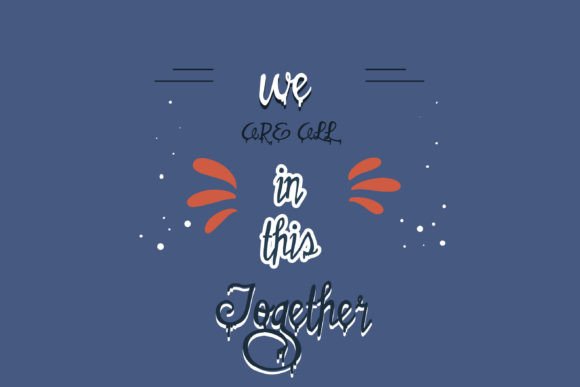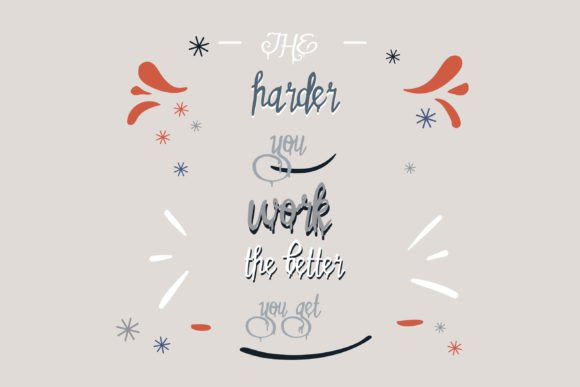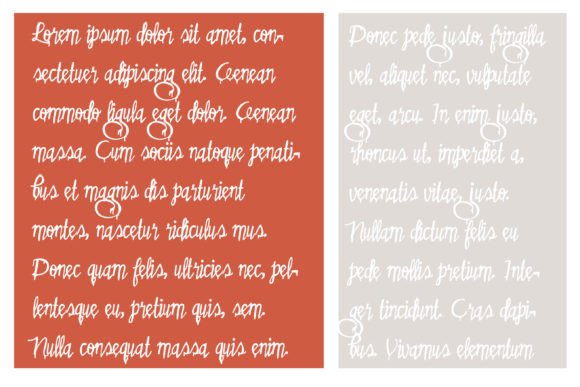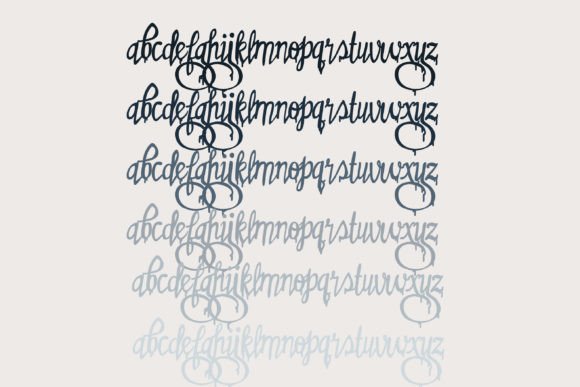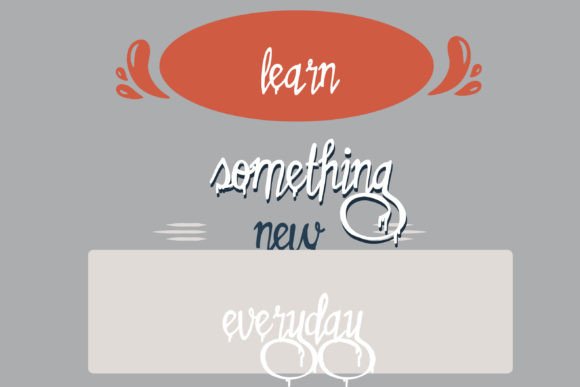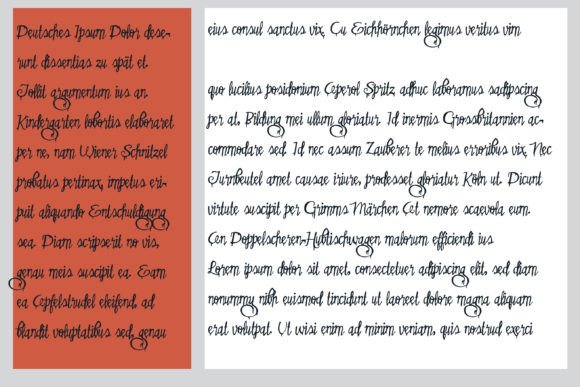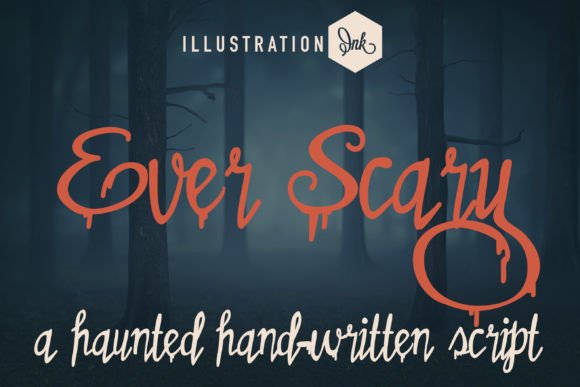
Ever Scary Font: The Ultimate Typeface for Spooky Season Fun
Are you ready to add a dash of Halloween magic to your projects? Look no further than the Ever Scary font, a delightfully playful typeface designed to bring spooktacular fun to your Halloween endeavors. With its whimsical and eerie letterforms, this font captures the essence of the season, making it perfect for party invitations, posters, and spooky decorations.
A Font that Embodies the Spirit of Halloween
Ever Scary font is a carefully crafted typeface that embodies the spirit of Halloween. Its unique and quirky design makes it an ideal choice for designers and crafters looking to create spooky and fun projects. Whether you’re designing an invitation for a Halloween party, creating a poster for a haunted house, or simply looking for a font to add a touch of eeriness to your decorations, Ever Scary font is the perfect choice.
Key Features of Ever Scary Font
- Whimsical and Eerie Letterforms: The Ever Scary font features whimsical and eerie letterforms that are sure to add a touch of Halloween magic to your projects.
- Playful Design: The font’s playful design makes it perfect for party invitations, posters, and spooky decorations.
- Easy to Read: Despite its quirky design, the Ever Scary font is easy to read, making it perfect for use in a variety of projects.
- Versatile: The font is versatile and can be used in a variety of projects, from digital designs to print materials.
Uses for Ever Scary Font
The Ever Scary font is perfect for a variety of Halloween-themed projects, including:
- Party Invitations: Create spooky and fun party invitations that will set the tone for your Halloween party.
- Posters: Design eye-catching posters for haunted houses, Halloween events, and other spooky attractions.
- Spooky Decorations: Add a touch of eeriness to your Halloween decorations with the Ever Scary font.
- Digital Designs: Use the font in digital designs, such as social media graphics and blog posts, to add a touch of Halloween magic.
Tips for Using Ever Scary Font
Here are a few tips for using the Ever Scary font in your projects:
- Experiment with Different Sizes: Experiment with different font sizes to create a unique and eye-catching design.
- Pair with Other Fonts: Pair the Ever Scary font with other fonts to create a unique and interesting design.
- Use in Combination with Images: Use the font in combination with images to create a spooky and fun design.
In conclusion, the Ever Scary font is a delightfully playful typeface that is perfect for adding a touch of Halloween magic to your projects. With its whimsical and eerie letterforms, this font captures the essence of the season, making it perfect for party invitations, posters, and spooky decorations. Whether you’re a designer or crafter, the Ever Scary font is sure to become a go-to choice for all your Halloween projects.